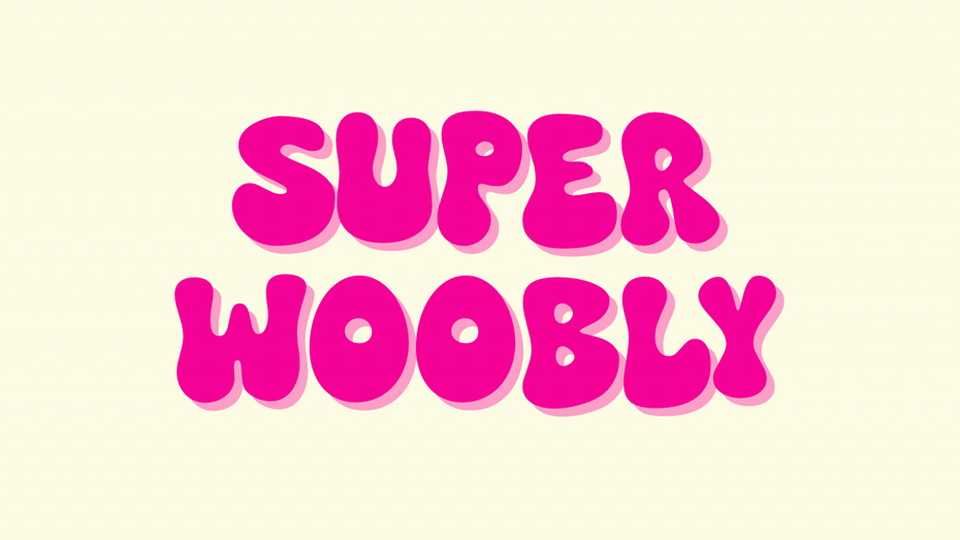
Download Super Woobly font, a bubbly and playful display typeface with a retro feel. Super Woobly font is carefully crafted to provide a strong and striking appearance and give a consistent and appealing look.